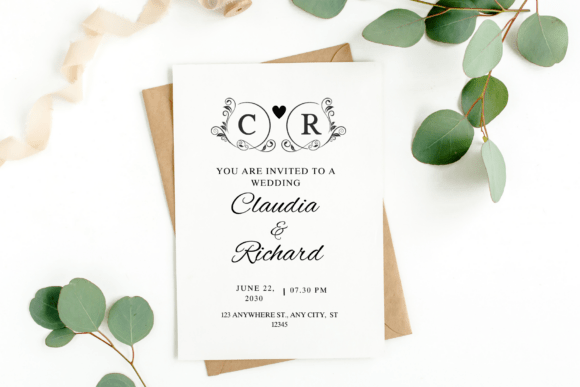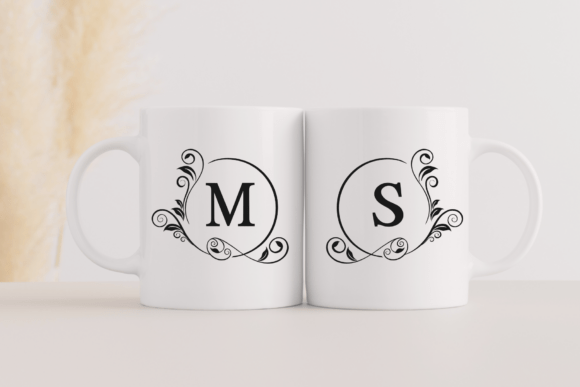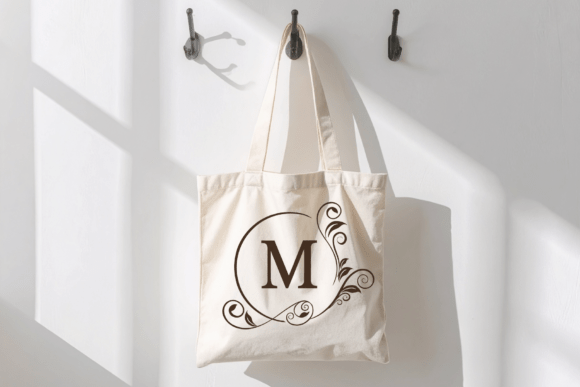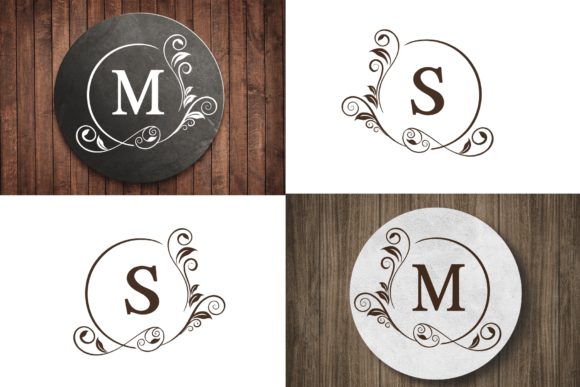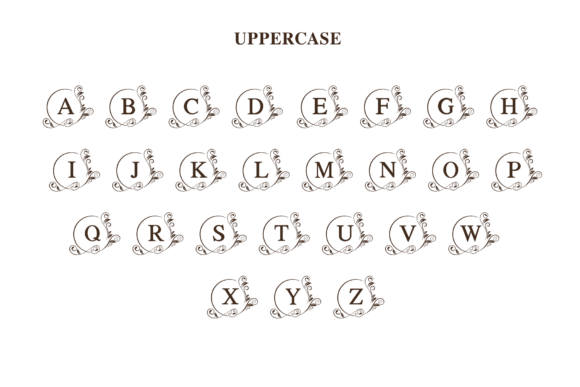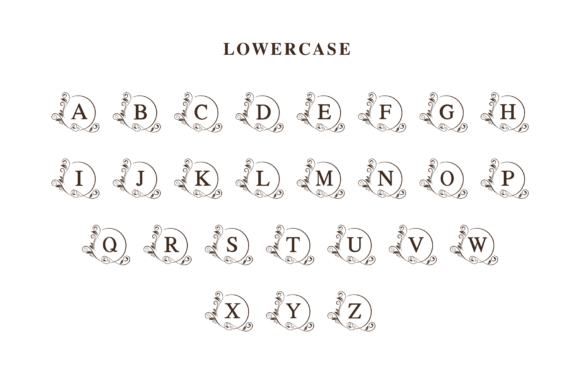
The Elegant Vine Monogram Font: A Timeless Choice for Creative Projects
I still remember the moment I stumbled upon the perfect font for my wedding invitation design project. I had been searching for what felt like an eternity, trying out font after font, but none seemed to capture the elegance and sophistication I was looking for. That was until I discovered the Elegant Vine Monogram Font. With its classic serif letters framed by delicate vine flourishes, it was love at first sight! 💕
In this article, I’ll share my experience with this beautiful font, its features, and how to make the most of it in your creative projects. Whether you’re a designer, crafter, or hobbyist, you’ll learn how to add a touch of elegance to your work with the Elegant Vine Monogram Font.
- ✨ Elegant and sophisticated design, perfect for high-end projects
- ✅ Classic serif letters with delicate vine flourishes for a unique touch
- 💯 Timeless and versatile, suitable for various creative projects, from wedding invitations to branding
- 👍 Easy to use and pairs well with other fonts for a cohesive look
While the Elegant Vine Monogram Font is an excellent choice, there are a few things to keep in mind:
- ⚠️ Limited availability of stylistic alternates, which might limit design flexibility
- 🤔 May require additional design elements to complement the font’s elegant style
The Elegant Vine Monogram Font was inspired by traditional botanical illustrations and classic typography. The designer aimed to create a font that would evoke a sense of elegance and sophistication, while also being versatile and easy to use.
The font’s delicate vine flourishes and classic serif letters are reminiscent of traditional wedding invitations and luxury branding. The designer’s attention to detail and commitment to quality have resulted in a font that is both beautiful and functional.
Q: What is the Elegant Vine Monogram Font suitable for?
A: The Elegant Vine Monogram Font is perfect for elegant monograms, wedding projects, branding, invitations, and personalized crafts.
Q: Is the Elegant Vine Monogram Font easy to use?
A: Yes, the Elegant Vine Monogram Font is easy to use and pairs well with other fonts for a cohesive look.